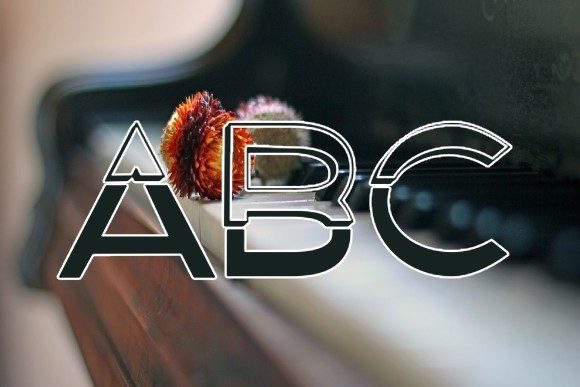
Unlock Creative Possibilities with Depth of Field Font
Are you a designer, crafter, or DIY enthusiast looking for a unique and creative way to elevate your projects? Look no further than the Depth of Field font, a decorative font that can add a touch of sophistication and style to any crafty idea. In this article, we’ll explore the features and benefits of the Depth of Field font, and show you how it can be used to take your projects to the next level.
What is Depth of Field Font?
Depth of Field is a creative and fun decorative font that is capable of taking any crafty idea to the highest levels. This font is perfect for designers, crafters, and DIY enthusiasts who want to add a touch of modern style to their projects. With its unique and elegant design, Depth of Field font is ideal for use in a variety of applications, including modern magazine covers, books, movies, games, modern wall art, and many more crafts.
Key Features of Depth of Field Font
The Depth of Field font has several key features that make it a standout choice for designers and crafters. Some of its key features include:
- Unique and Elegant Design: The Depth of Field font has a unique and elegant design that is sure to turn heads. Its modern and sophisticated style makes it perfect for use in a variety of applications.
- Highly Versatile: The Depth of Field font is highly versatile, making it perfect for use in a wide range of projects, from modern magazine covers to modern wall art.
- Easy to Use: The Depth of Field font is easy to use, even for those who are new to design. Its user-friendly interface makes it simple to customize and edit.
Benefits of Using Depth of Field Font
There are many benefits to using the Depth of Field font in your projects. Some of the benefits include:
- Adds a Touch of Sophistication: The Depth of Field font adds a touch of sophistication and style to any project. Its modern and elegant design makes it perfect for use in high-end applications.
- Stand Out from the Crowd: The Depth of Field font is a unique and creative font that is sure to make your project stand out from the crowd. Its distinctive design makes it perfect for use in projects where you want to make a statement.
- Perfect for DIY Projects: The Depth of Field font is perfect for use in DIY projects, such as modern wall art, crafts, and more.
Using Depth of Field Font in Your Projects
The Depth of Field font can be used in a wide range of projects, including:
- Modern Magazine Covers: The Depth of Field font is perfect for use in modern magazine covers. Its modern and sophisticated style makes it ideal for use in high-end publications.
- Books and Novels: The Depth of Field font is also perfect for use in books and novels. Its elegant design makes it ideal for use in fiction and non-fiction publications.
- Movies and Games: The Depth of Field font can also be used in movies and games. Its modern and stylish design makes it perfect for use in titles, credits, and more.
- Modern Wall Art: The Depth of Field font is perfect for use in modern wall art. Its unique and creative design makes it ideal for use in DIY projects.
Tips and Tricks for Using Depth of Field Font
Here are some tips and tricks for using the Depth of Field font in your projects:
- Experiment with Different Colors: The Depth of Field font looks great in a variety of colors. Experiment with different colors to find the one that works best for your project.
- Use it with Other Fonts: The Depth of Field font can be used with other fonts to create a unique and creative look.
- Customize and Edit: The Depth of Field font is highly customizable. Take the time to customize and edit the font to fit your project’s needs.
The Depth of Field font is a creative and fun decorative font that is capable of taking any crafty idea to the highest levels. Its unique and elegant design makes it perfect for use in a wide range of applications, from modern magazine covers to modern wall art. With its highly versatile design and user-friendly interface, the Depth of Field font is perfect for designers, crafters, and DIY enthusiasts who want to add a touch of sophistication and style to their projects.